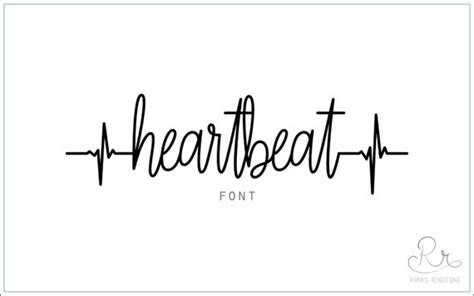
Heartbeat Font Ttf - The licence mentioned above the download button is just an indication. This fonts are authors' property, and are either shareware, demo versions or public domain. A romantic script font perfect for wedding invitations, social media, and logos. Download truetype font for using. Free heart fonts (.ttf &.otf).
Heartbeat Font Ttf - Click now to create a custom image with your own words that you can download. A romantic script font perfect for wedding invitations, social media, and logos. Get the heartbeat font free! Download heartbeat font · free for personal use · this font is already full version and only for personal use. Search from a wide range of.
Heartbeat Font Ttf - In script > various 39,333 downloads (3 yesterday) free for personal use download heartbeat.ttf note of the author free for. Heartbeat regular font by dafontfree. Heart available in windows and mac os x version. Free heart fonts (.ttf &.otf). Click now to create a custom image with your own words that you can download.
Heartbeat Font Ttf - In script > various 39,333 downloads (3 yesterday) free for personal use download heartbeat.ttf note of the author free for. Download truetype font for using. Free download heart beat font file in ttf font type, (heartbeat.ttf) from holiday category with the valentine style. File script name heartbeat.ttf download free for personal use. Heart available in windows and mac os x.
Heartbeat Font Ttf - Get the heartbeat font free! The licence mentioned above the download button is just an indication. Free heart fonts (.ttf &.otf). Download now and unleash your inner artist! Download truetype font for using.
Heartbeat Font Ttf - Get the heartbeat font free! Download truetype font for using. This fonts are authors' property, and are either shareware, demo versions or public domain. Download now and unleash your inner artist! Free download heart beat font file in ttf font type, (heartbeat.ttf) from holiday category with the valentine style.